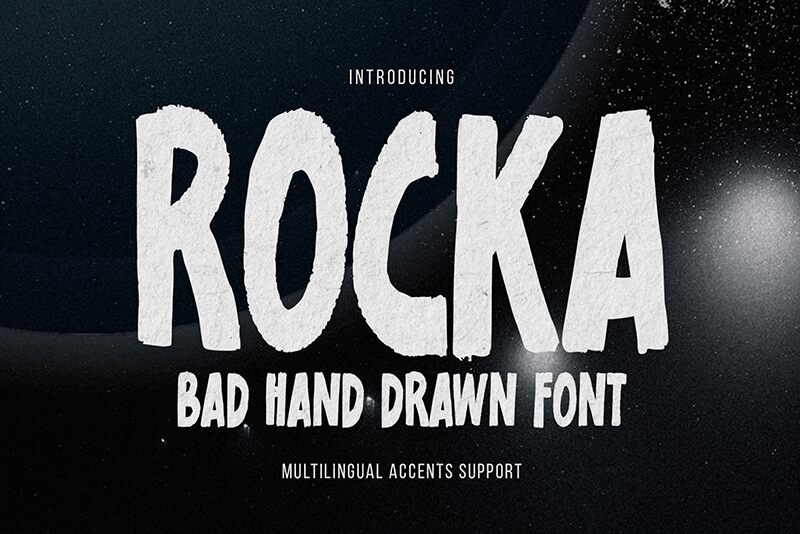
Rocka
Rocka, crafted by the innovative Gassstype, breaks the mold with its bold, brush-styled strokes and extra-condensed lettering. This bad hand-drawn font embodies modernity with a dramatic flair, penned with a casual quickness that breathes authenticity into every curve. Ideal for a multitude of creative endeavors, Rocka excels in making statements on labels and posters or adding an edgy touch to project designs that demand attention.
Embrace the textured strength of Rocka to infuse your branding, packaging, and digital presence with an organic edge. Its natural look makes it perfect for personalizing greeting cards or embellishing photography overlays. Whether it's sprucing up websites or crafting eye-catching signs and scrapbook pages, Rocka's unique aesthetic ensures your projects stand out with unmatched originality and flair.